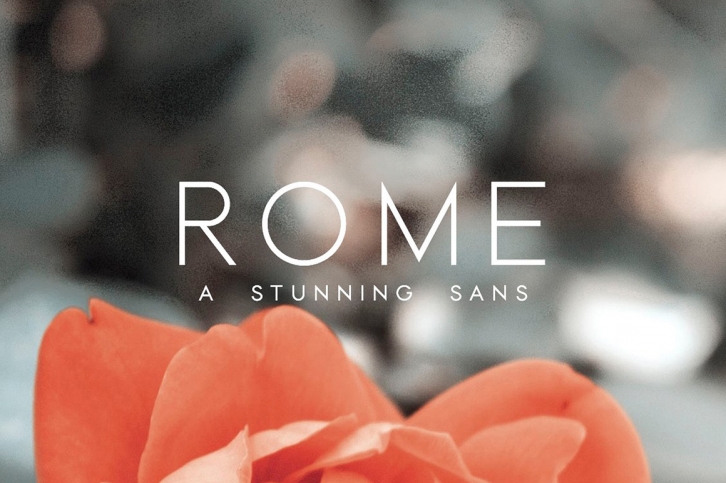
Rome | A Stunning Sans Serif FONT Download
Rome | A Stunning Sans Serif Font Download
Rome is a great font that was designed by Jen Wagner Co.. Imagine the amount of combinations you can create using this font! The archive is 10.59 MB and it was released on September 24, 2018. Rome looks beautiful on wedding invitations, greeting cards, logos, posters, labels, t-shirt designs, logos, business cards and is perfect for use in ink or watercolor works, fashion, magazines, packaging and food menus, children's books and more!